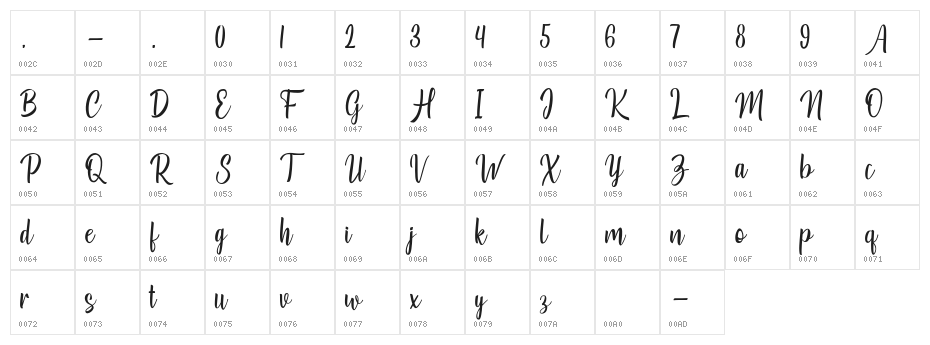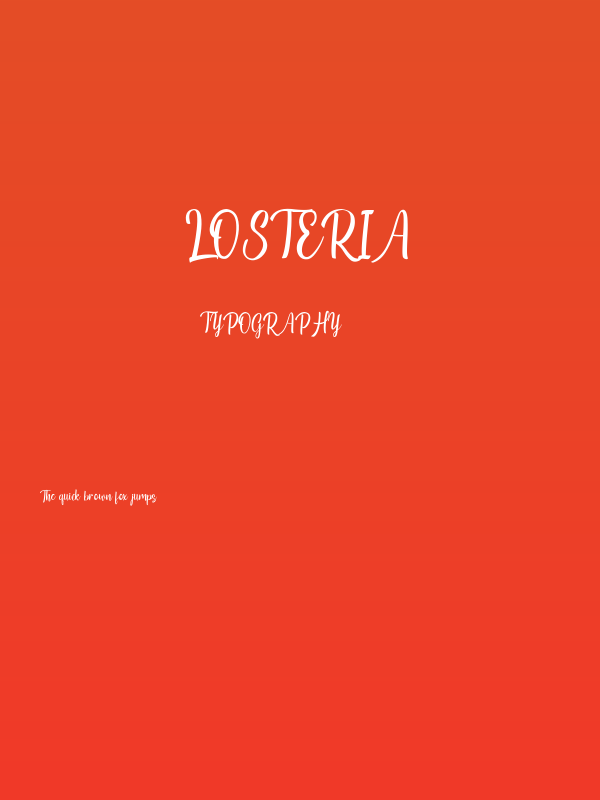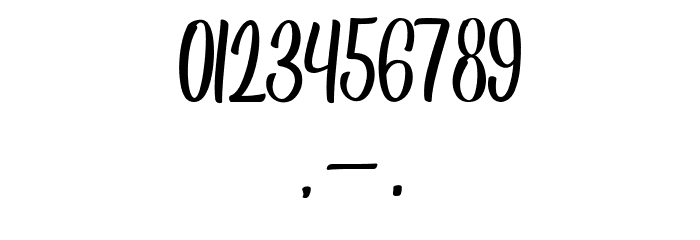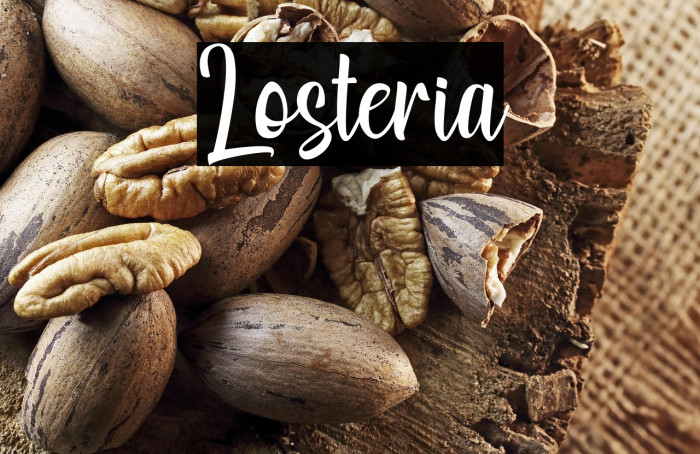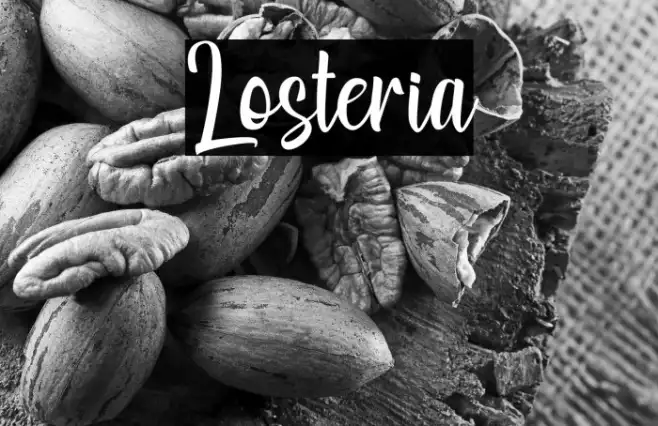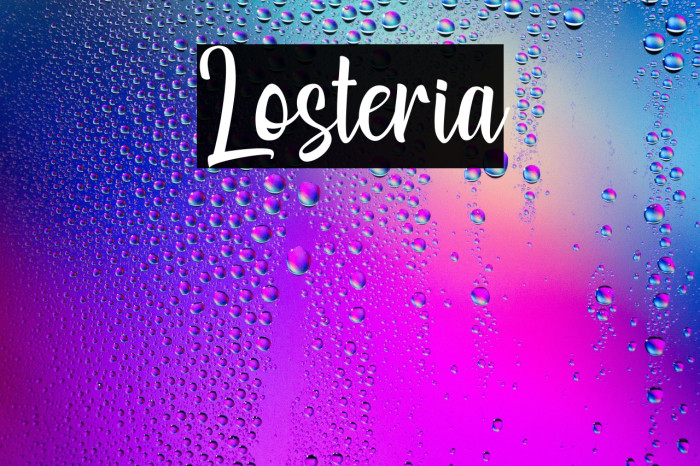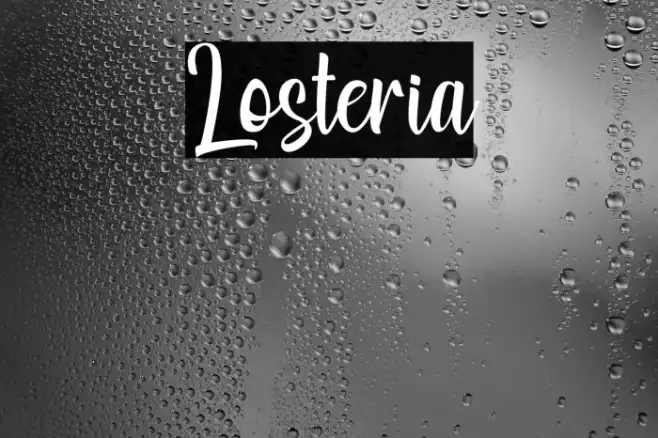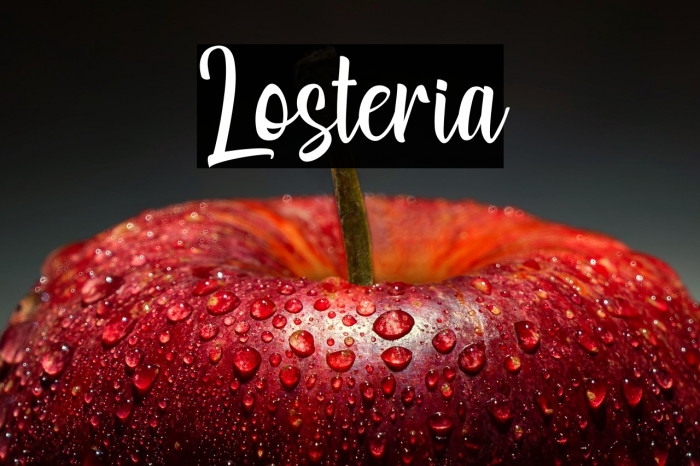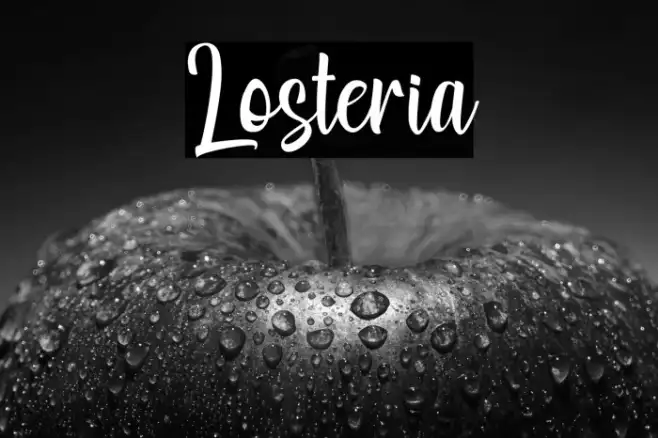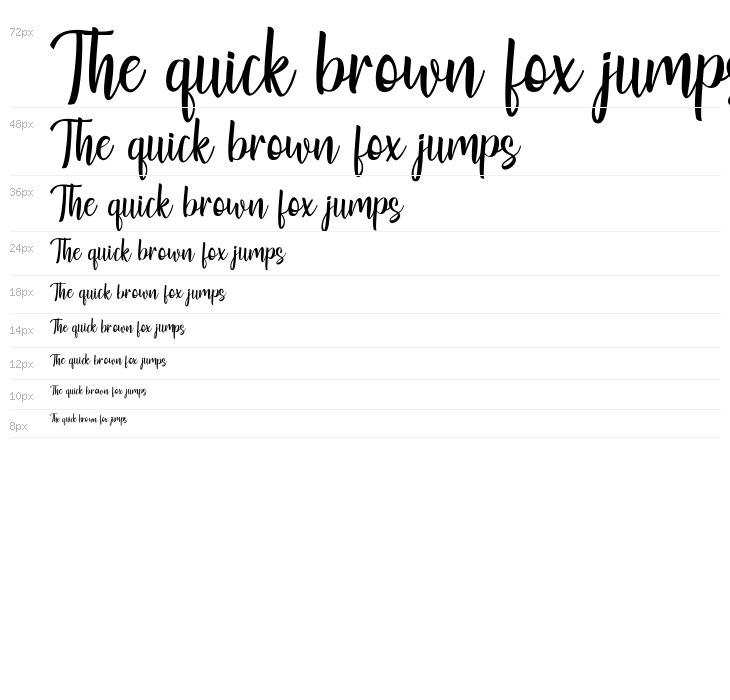
Losteria Font
Losteria Description
This font features an elegant and flowing script style, characterized by its smooth, cursive strokes and a sense of fluidity. The uppercase letters are tall and slightly slanted, giving a dynamic and graceful appearance. The lowercase letters maintain a consistent flow, with rounded forms and subtle connections between characters. The numerals are clear and maintain the script style, ensuring readability while preserving the aesthetic. Special characters are integrated seamlessly, enhancing the font's versatility. Overall, this font exudes a sense of sophistication and charm, making it suitable for a variety of creative applications.